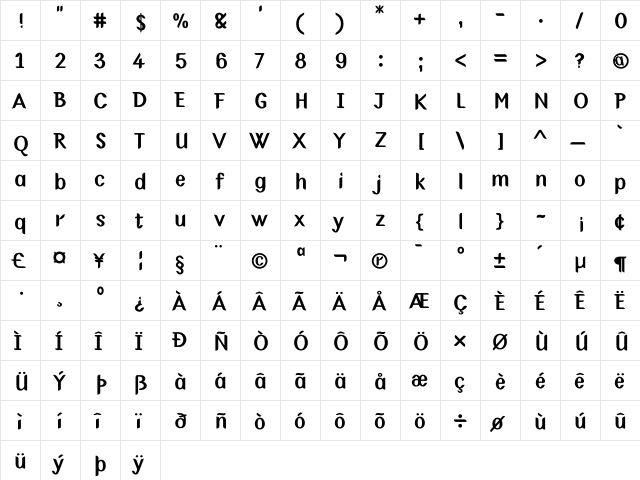
GreenTerrorBold Regular
Design Context for GreenTerrorBold Typeface
GreenTerrorBold takes a measured approach to typography — its balanced proportions and neutral character make it a reliable workhorse for both digital and print work. The heavy weight commands attention and anchors typographic hierarchies.